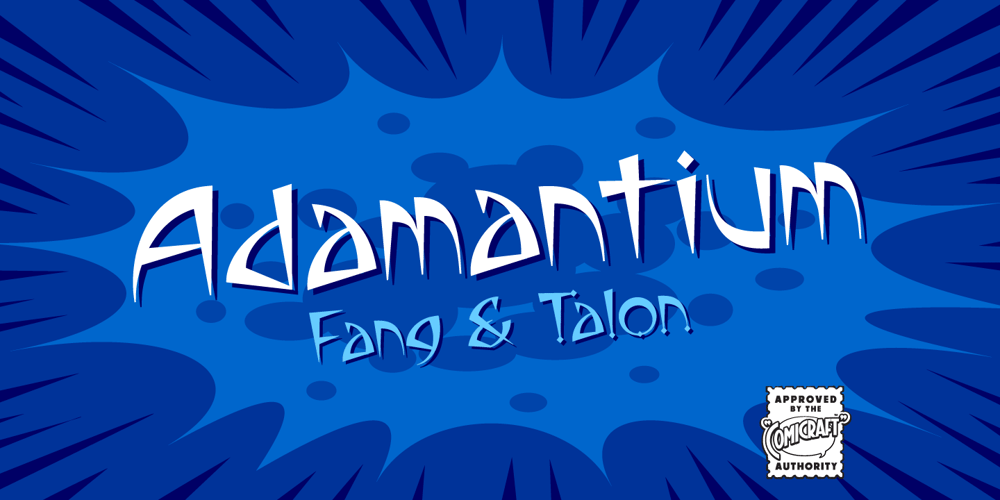
Adamantium Font Family was designed by John Roshell and published by Comicraft. Adamantium contains 2 styles and family package options. Looking for sharp-looking characters in ferocious action? Then look no further than this font, originally designed for GHOST RIDER 2099. Adamantium has also been featured in WOLVERINE and THE UNCANNY X-MEN.